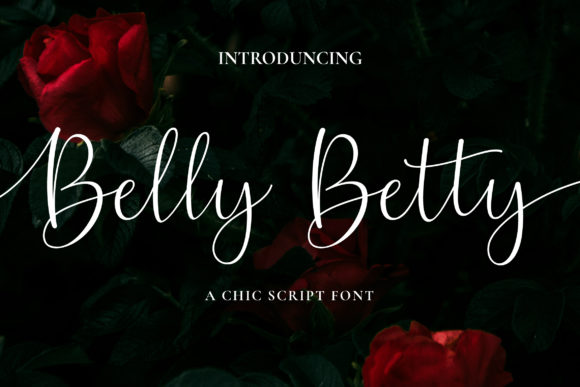
Step into the world of modern elegance with Belly Betty Font, a captivating script creation by Ef Studio. This exquisite font family is a symphony of artistry, combining the charm of calligraphy with a contemporary edge. Designed to inspire and elevate your creative projects, Belly Betty is more than just a font; it's an experience.
With its intricate ligatures, playful alternates, and expressive swashes, Belly Betty dances across your designs, adding a touch of timeless sophistication and remarkable originality. Whether you're a seasoned designer or just starting your creative journey, Belly Betty has the power to transform your words into works of art.
Unleash your imagination and create captivating wedding invitations, heartfelt branding designs, alluring social media posts, or unforgettable logos that embody the essence of elegance. Belly Betty's versatility knows no bounds, making it the perfect choice for a wide range of projects, from the delicate to the bold.
Go beyond the ordinary and embrace the extraordinary with Belly Betty Font. Its enchanting characters will captivate your audience, leaving a lasting impression that speaks volumes about your attention to detail and impeccable taste. Step into a world of visual artistry and make your creative dreams a reality.